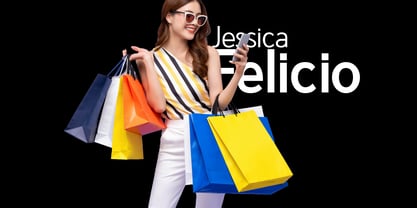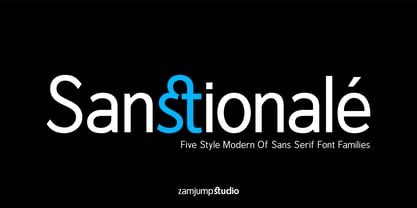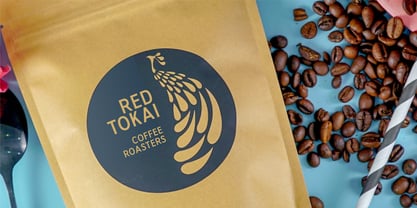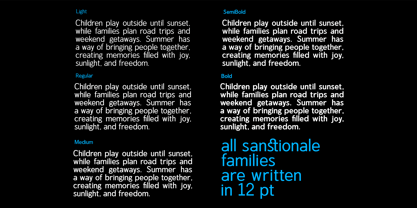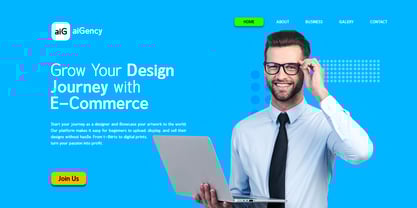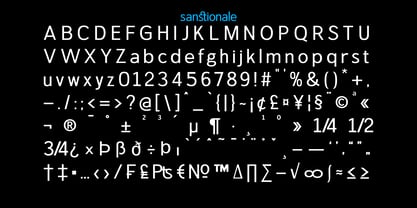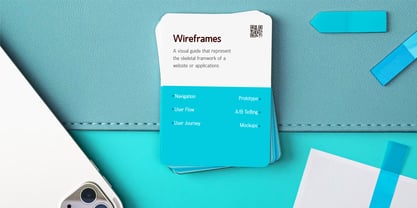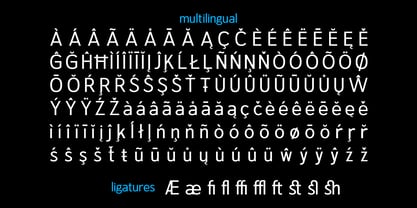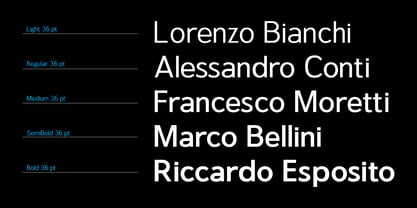
Sanstionale
by Zamjump
The Sanstionale Font Family was designed by Zamjump, Ahmad Zamzami and published by Zamjump. Sanstionale contains 5 styles and family package options. More about this family
Sanstionale, a modern and versatile sans-serif font family designed to bring clarity, elegance, and strength to your typography. With 5 distinct weights—from Light to Bold—Sabstionale offers flexibility for a wide range of design needs, ensuring consistency across print and digital media. Crafted with clean lines and a balanced structure, Sabstionale maintains high readability at all sizes while providing a contemporary aesthetic that feels both professional and stylish. Ideal Use Cases: Book Covers – Make titles and author names stand out with bold, eye-catching typography. Editorial Design – Perfect for headings, subheadings, and body text in magazines or long-form content. Branding – Create impactful logos, taglines, and brand assets that communicate confidence and clarity. Web & App UI – Clean legibility ensures an excellent user experience across screens. Posters & Print Materials – Bold and crisp styling makes your message unmissable. Packaging Design – Enhance product labels with modern, minimalist flair.